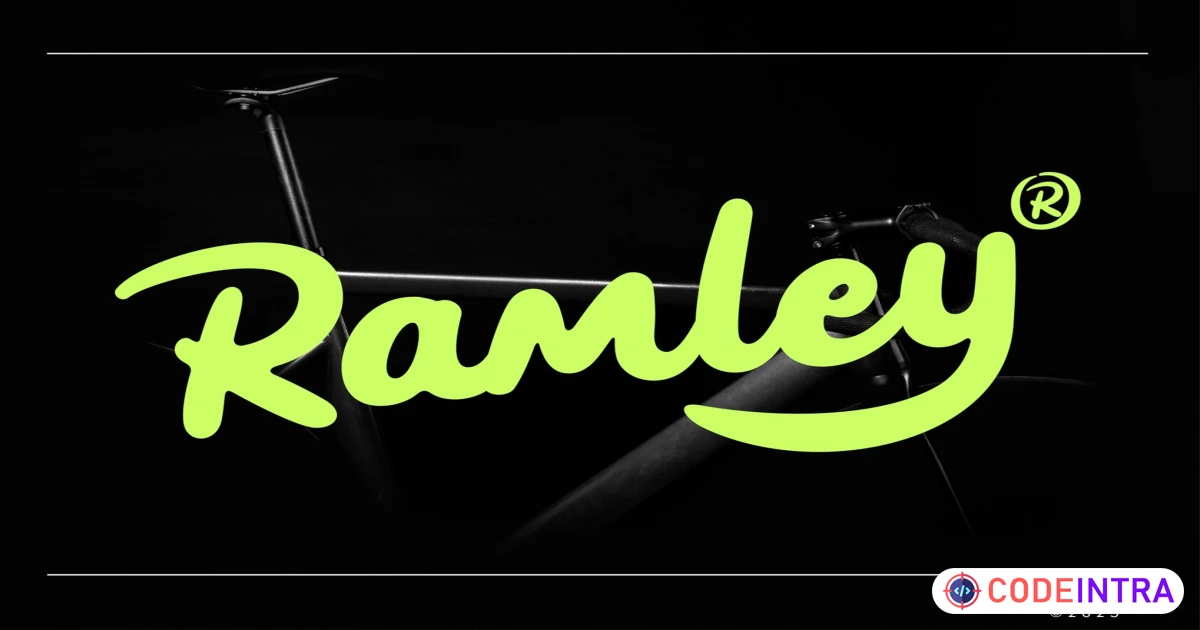
Ramley is an elegant handwritten font with a simple, refined style, perfect for numerous design projects. Ideal for crafting, branding, invitations, stationery, wedding designs, social media posts, advertisements, product packaging, label design, posters, photography, and special events, this versatile font will add a personal touch to your creative work.